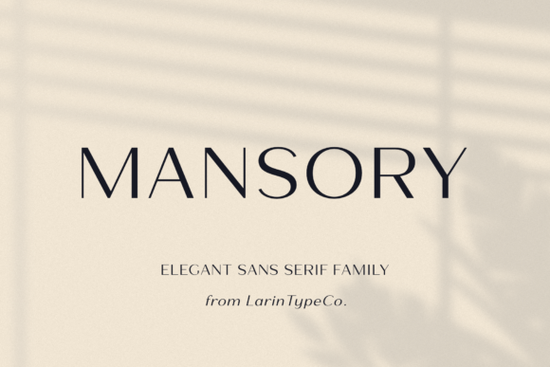
If you're looking for a clean, modern sans serif that adds subtle elegance without overwhelming your layout, the Mansory Font is worth a closer look. It’s light, well-proportioned, and versatile enough for everything from branding to packaging and digital graphics. Whether you’re designing a logo for a boutique coffee shop or creating printable wall art for your Etsy store, Mansory brings a refined touch that feels intentional not fussy.
What makes Mansory stand out among other minimalist fonts is its balance. The letterforms are airy but grounded, with just enough contrast to feel contemporary without straying into stark minimalism. This makes it especially useful for projects where readability and aesthetics need to coexist think product labels, social media quotes, or even wedding invitations.
When should you use Mansory in your designs?
Mansory works best when you want sophistication without heaviness. It pairs beautifully with photography, textured backgrounds, or bold accent fonts. Here are a few real-world uses:
- Branding for lifestyle businesses yoga studios, skincare lines, or artisanal food brands benefit from its calm, polished vibe.
- Print-on-demand products like mugs, tote bags, or greeting cards where clean typography enhances the message.
- Digital templates such as Canva layouts or Instagram story kits that need a neutral but stylish typeface.
Because it’s a light sans serif, avoid using Mansory in very small sizes or low-resolution prints it shines brightest at medium to large scales where its delicate details can be appreciated.
How does Mansory compare to similar fonts?
If you’ve browsed Creative Fabrica’s sans serif collection, you might have come across options like Brisca, which offers a slightly more geometric structure, or TRT Burn, known for its urban edge and condensed spacing. Mansory sits comfortably between those extremes: less rigid than Brisca, softer than TRT Burn.
Another alternative is the Modern Heritage font, which blends vintage proportions with contemporary styling. While Modern Heritage leans into retro charm, Mansory stays firmly in the present ideal if your aesthetic is “quiet luxury” rather than nostalgic.
Tips for pairing Mansory with other typefaces
Since Mansory is so light and open, it often needs a supporting font with more weight or character to create visual hierarchy. Try these combinations:
- With a bold serif: Pair Mansory headlines with a strong serif like Playfair Display for editorial layouts or blog headers.
- With a condensed sans: Use a tight, impactful sans (like Montserrat Alternates) for subheadings or buttons to add contrast.
- Monospaced companions: For tech-inspired or modern minimalist projects, combine Mansory with a clean monospace font for captions or data labels.
Keep color choices simple soft neutrals, muted pastels, or deep earth tones let Mansory’s form speak for itself. Avoid busy patterns behind it; instead, opt for solid backgrounds or subtle gradients.
Who is Mansory best suited for?
This font is particularly helpful for:
- Small business owners creating their own marketing materials without hiring a designer.
- Crafters and hobbyists making custom vinyl decals, embroidery designs, or scrapbook elements.
- Print-on-demand sellers who need reliable, licensable fonts for t-shirts, posters, and digital downloads.
- Freelance designers building client templates that require timeless typography.
Because it’s available through Creative Fabrica’s subscription model, you can test it risk-free alongside thousands of other design assets no need to commit to a single purchase upfront.
Before you finalize your choice, ask yourself: Does my project need warmth or neutrality? If it’s the latter, Mansory delivers clarity without coldness. And if you ever need a backup option with a bit more personality, fonts like Brisca or Modern Heritage offer great alternatives within the same category.